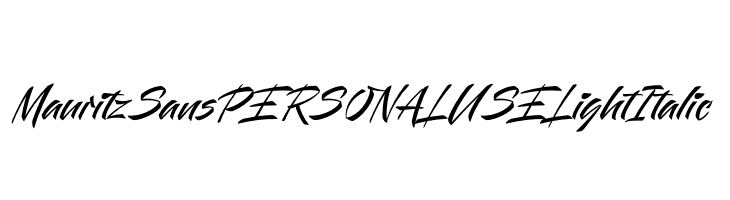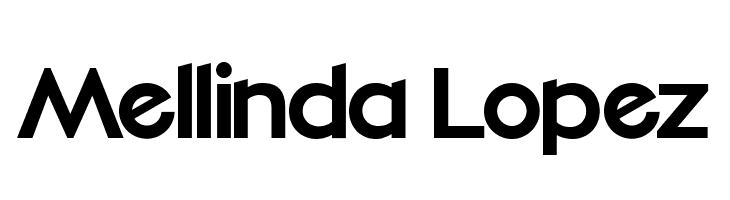
A bold, modern sans-serif font with geometric lines and a strong, cohesive appearance.
A playful, handwritten font with smooth, flowing lines and a casual style.
A modern, cursive font with interconnected, flowing letters.
A playful, bold handwritten font with rounded letterforms and a casual style.
A playful, quirky font with geometric and organic shapes.
A bold, flowing script font with elegant curves and artistic style.
A bold, italicized font with dynamic, thick strokes and a strong presence.
A dynamic and modern script font with bold, expressive strokes.
A bold, handwritten font with a playful brush marker style.
A tall, narrow, and modern geometric font with consistent stroke width.